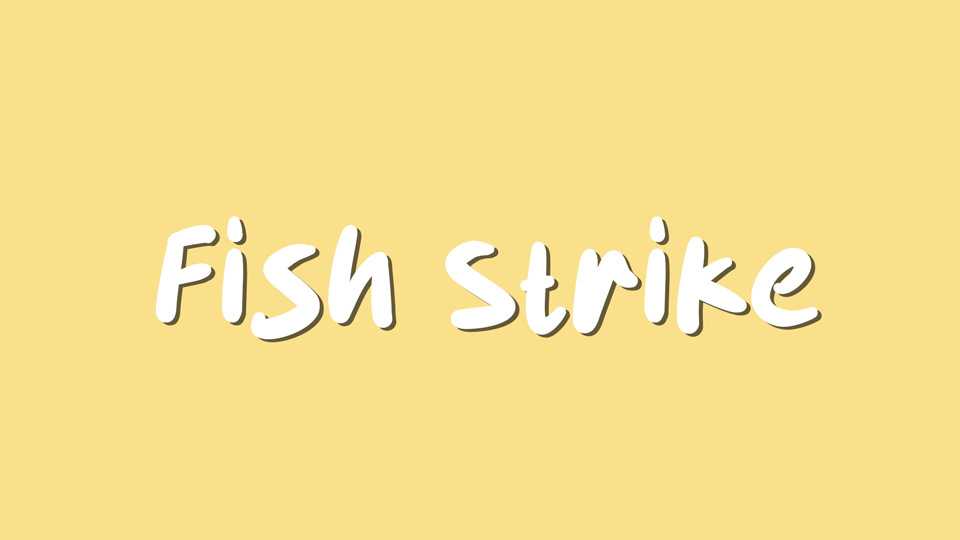
Download Fish Strike font, a casual handwritten typeface that brings a carefree and laid-back vibe to your designs. Fish Strike boasts a natural flow and loose letterforms, giving your text a friendly and approachable appeal.